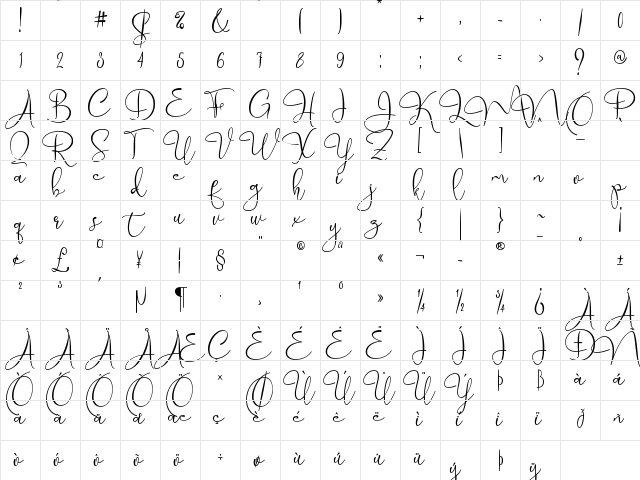
Marellia Script Regular
Design Context for Marellia Script Typeface
Marellia Script brings a calligraphic fluidity to the page — its connecting strokes and expressive curves give it an unmistakably human quality.